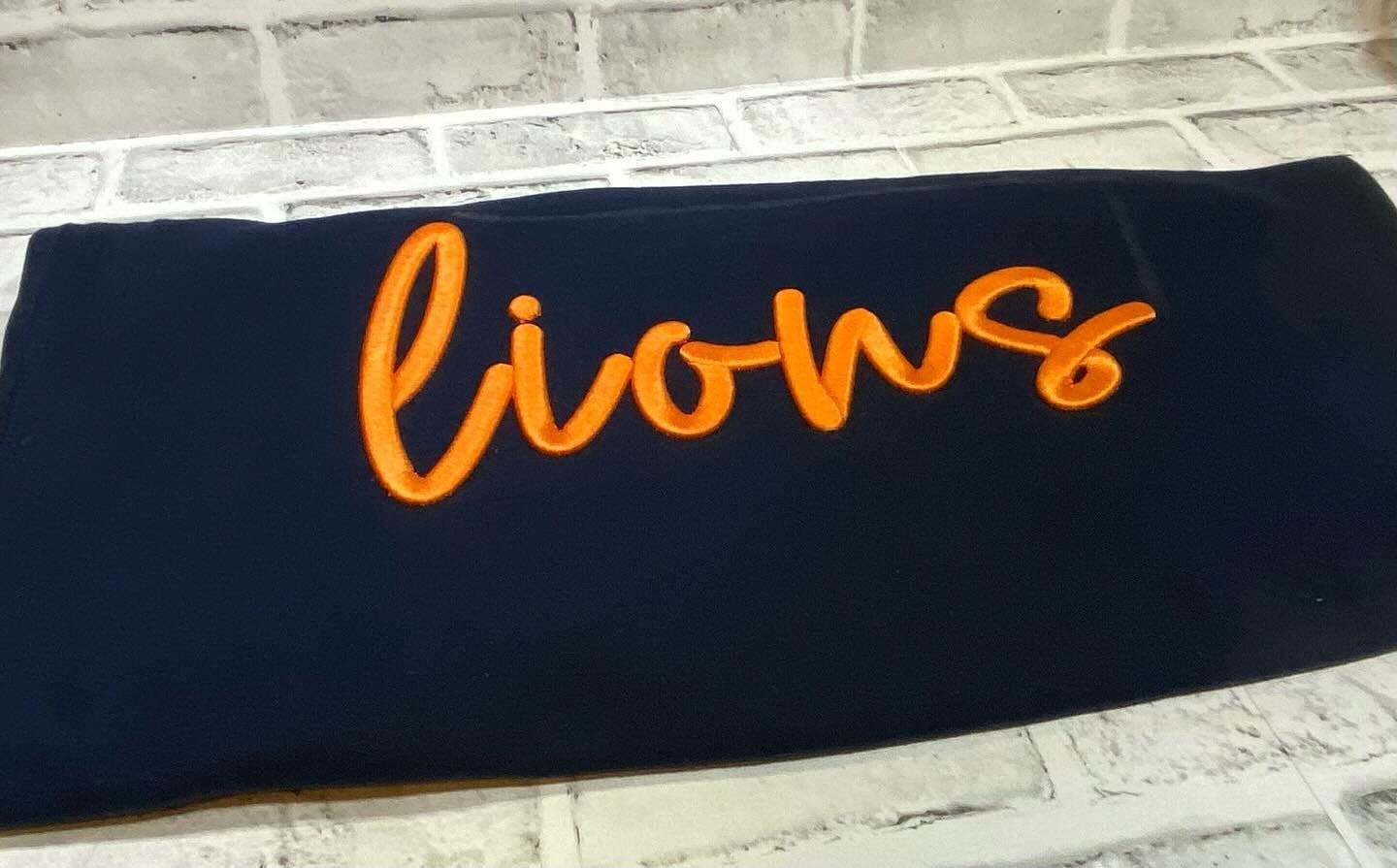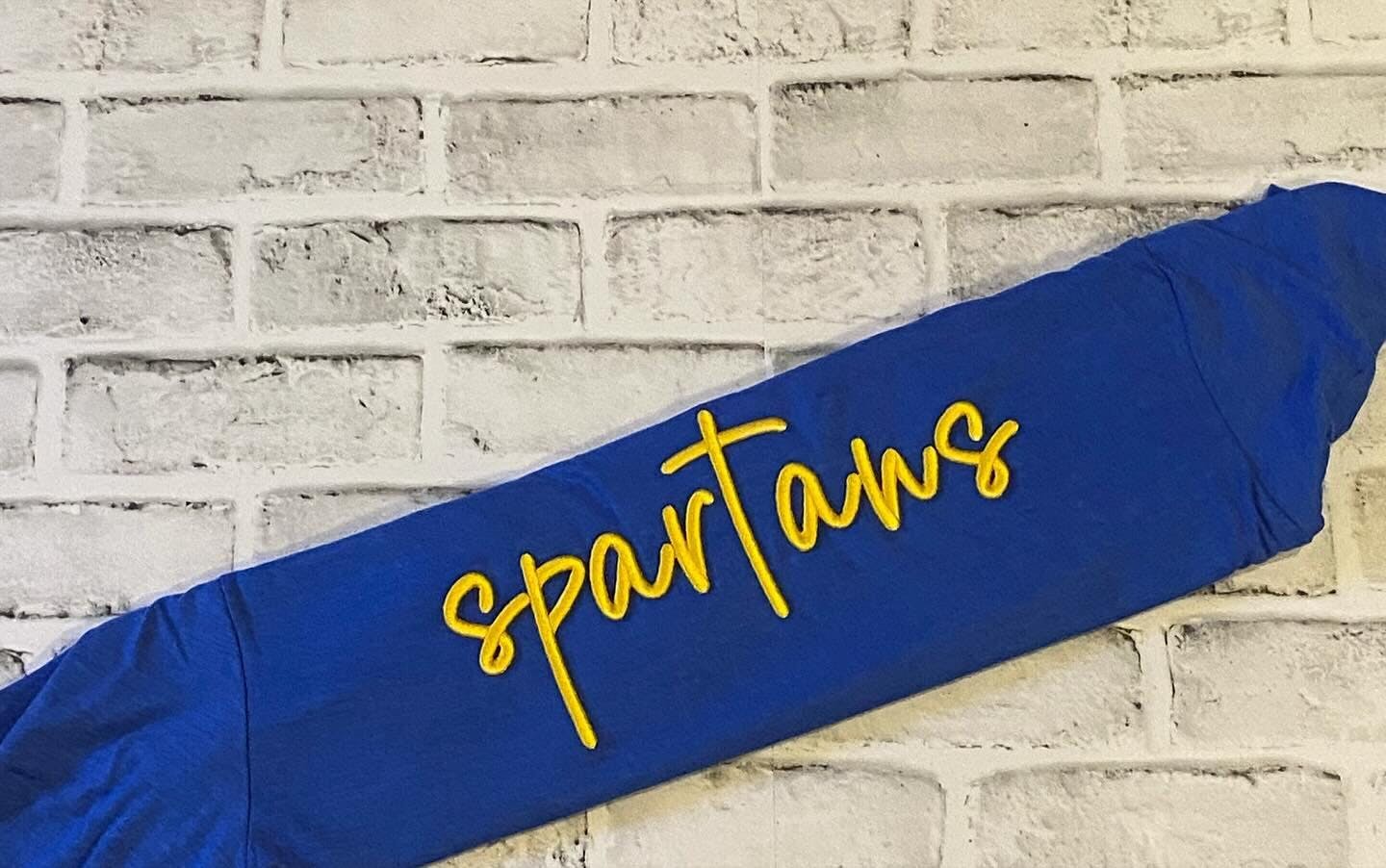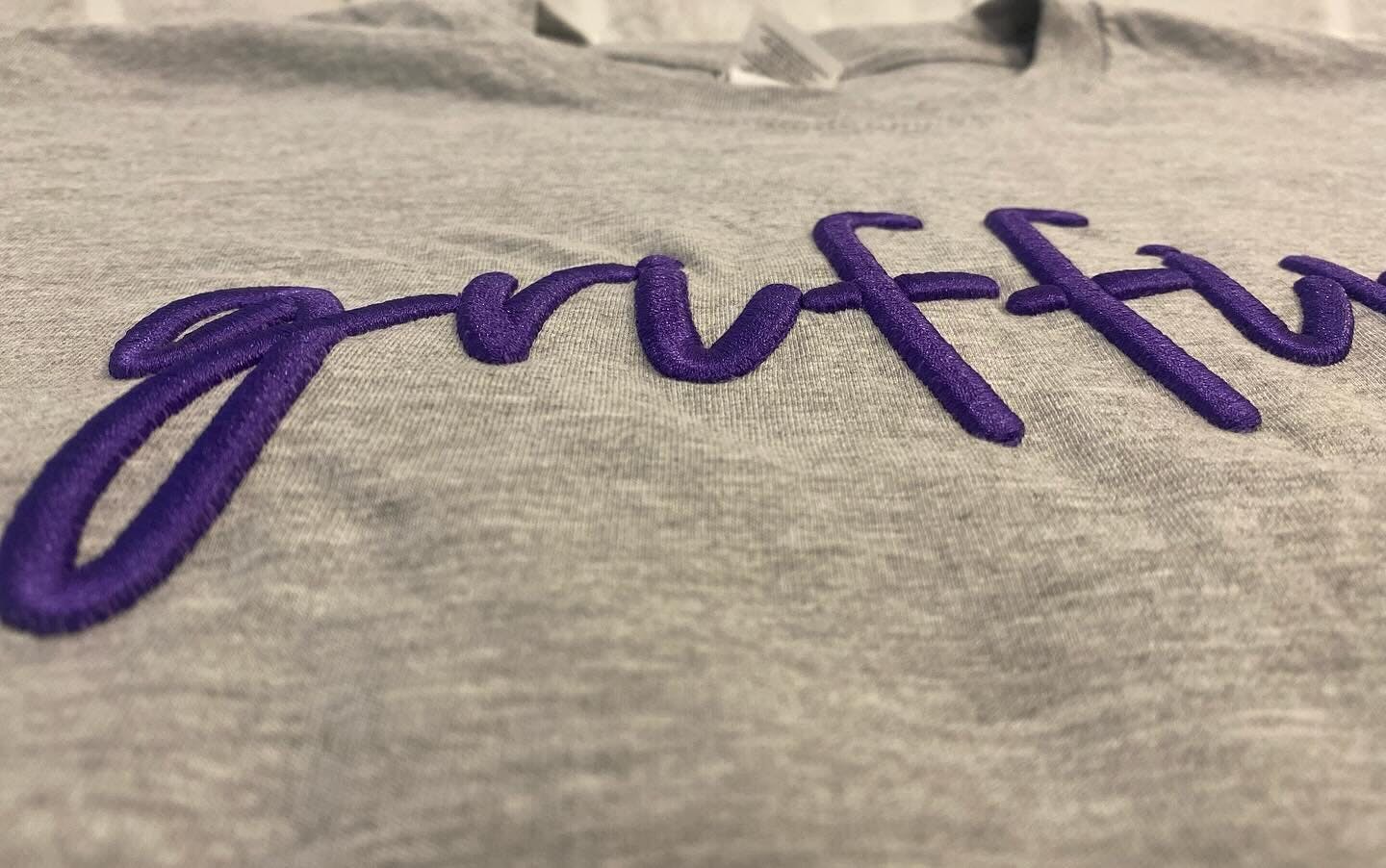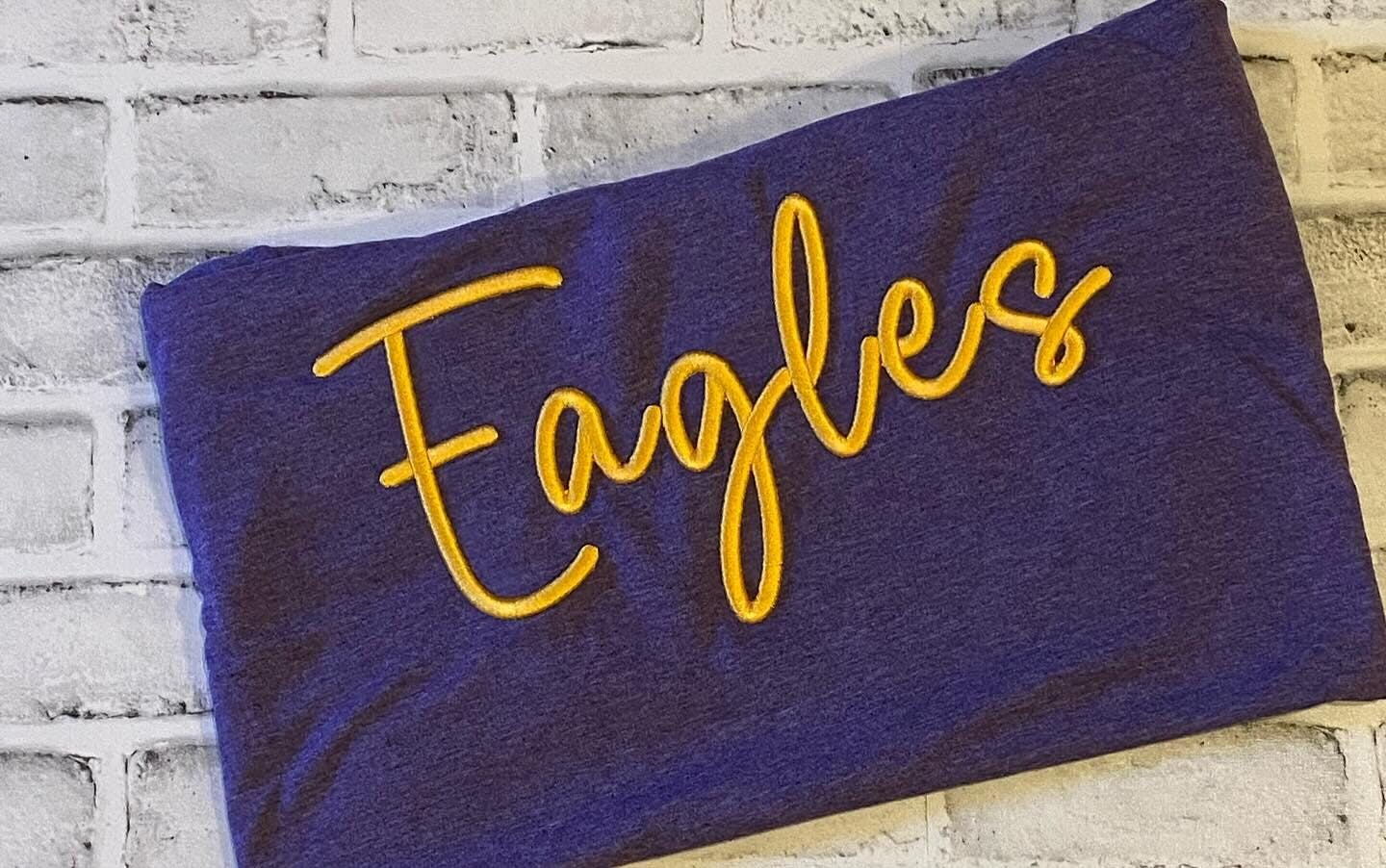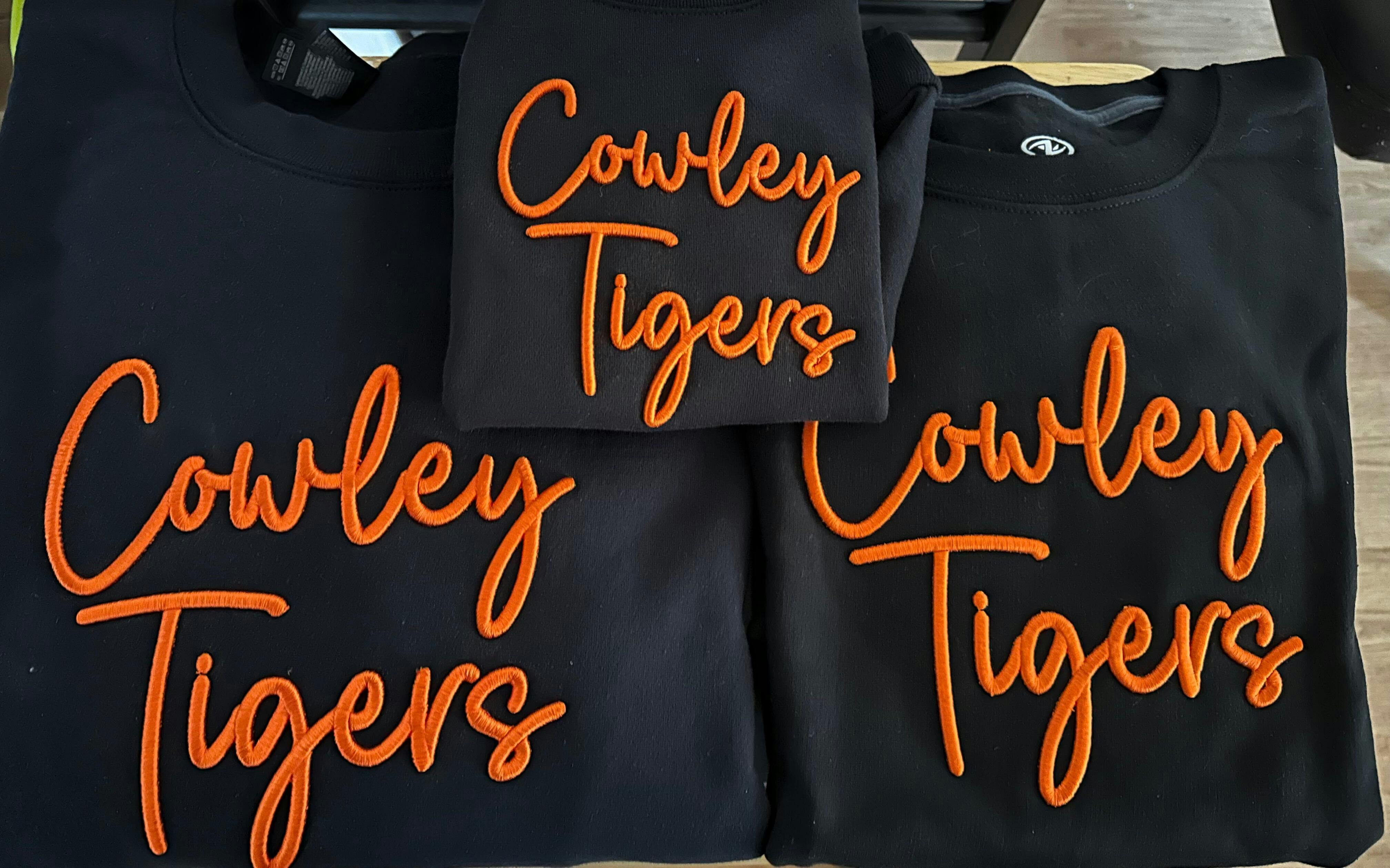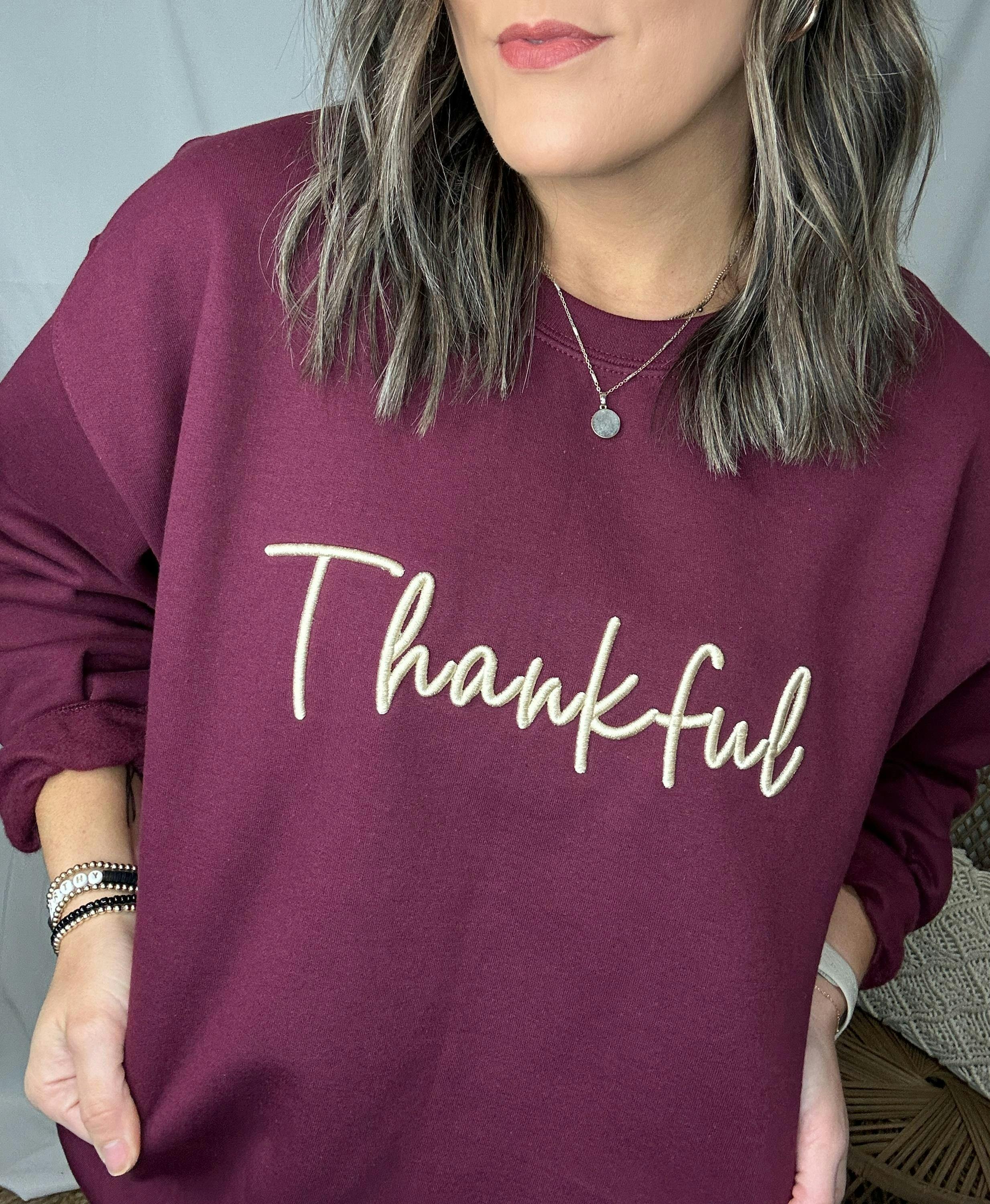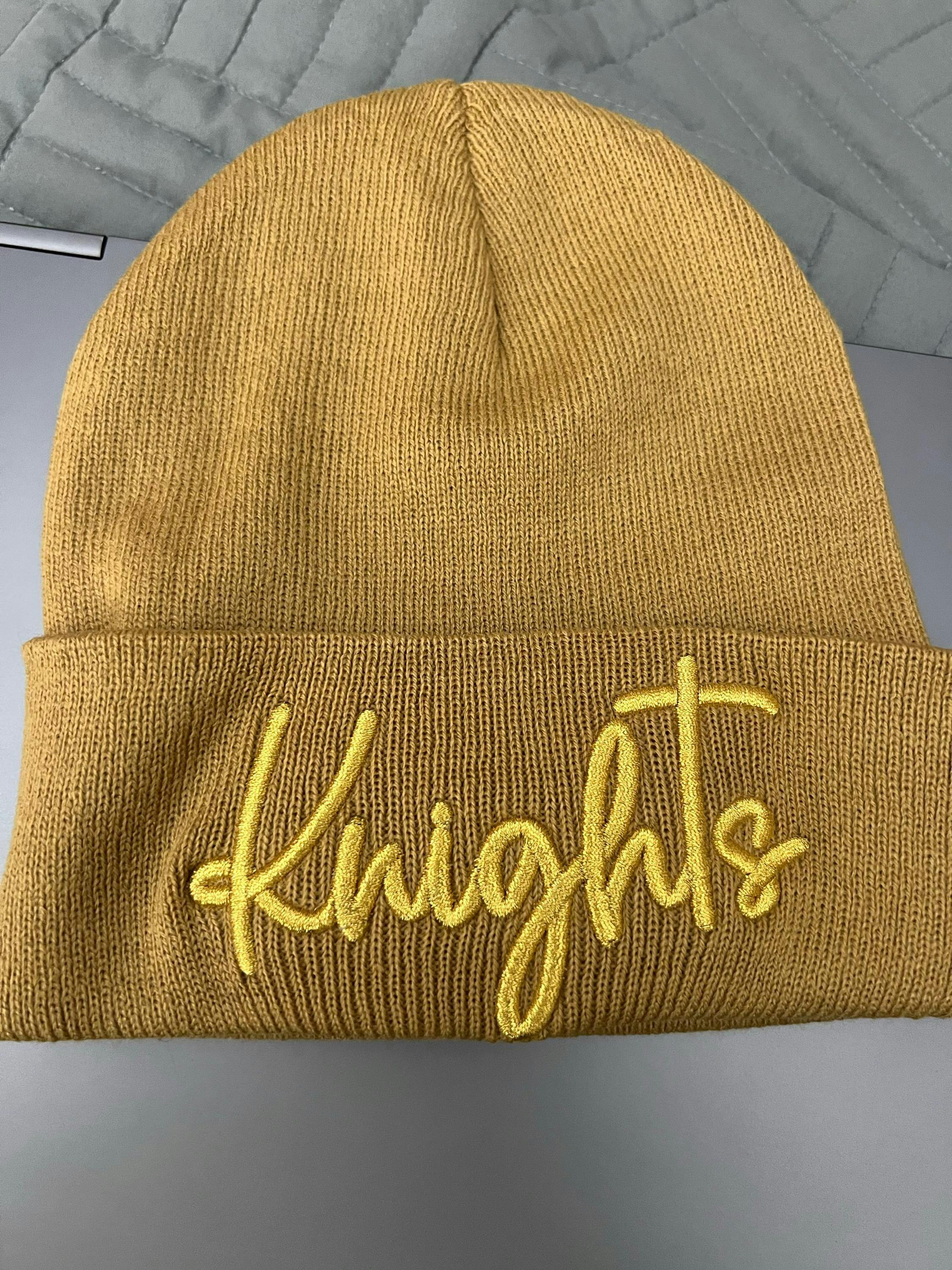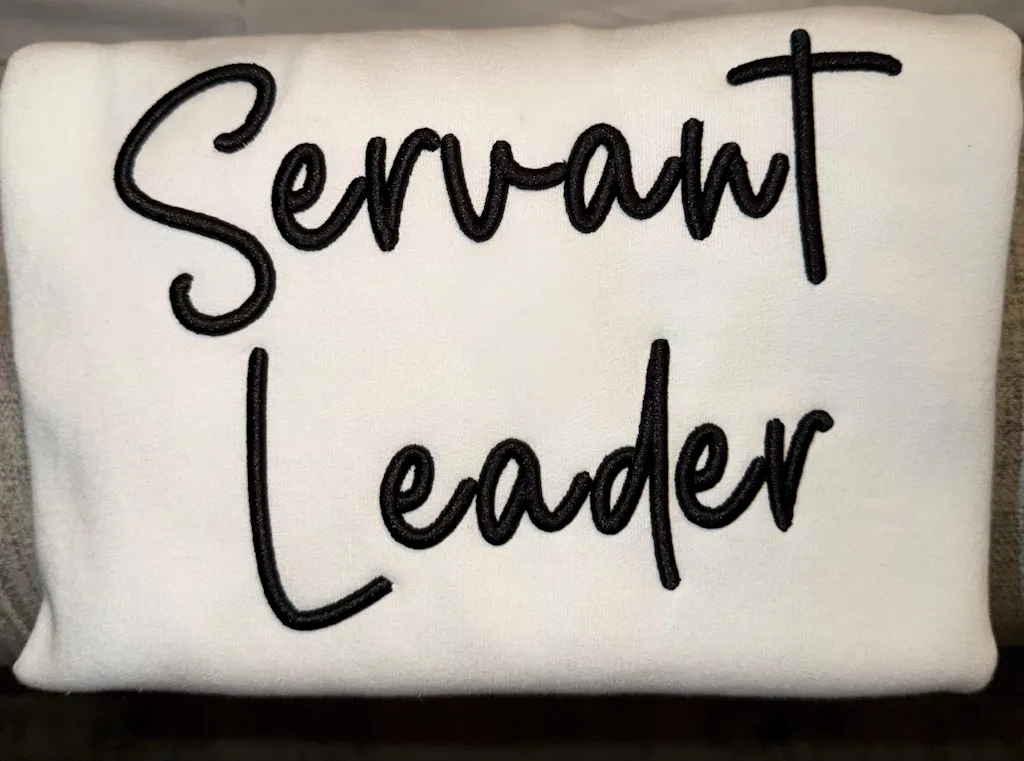
Photograph of Rustic Charm 3D embroidery font
Video showcasing stitched out Rustic Charm 3D  font
Photograph of Rustic Charm 3D embroidery font alphabet
Rustic Charm 3D Puff Digital Embroidery Font
Introducing Rustic Charm 3D — the embroidery font that brings a touch of countryside elegance to your projects. With its handcrafted appearance and organic flow, Rustic Charm evokes the warm, inviting feel of a cozy cottage or a serene farmhouse. Whether you're looking to add a personal touch to your craft or aiming for that homespun market chic, Rustic Charm 3D is the perfect font to stitch through your creations.
Stitch Type: Satin Stitch for 3D Puff